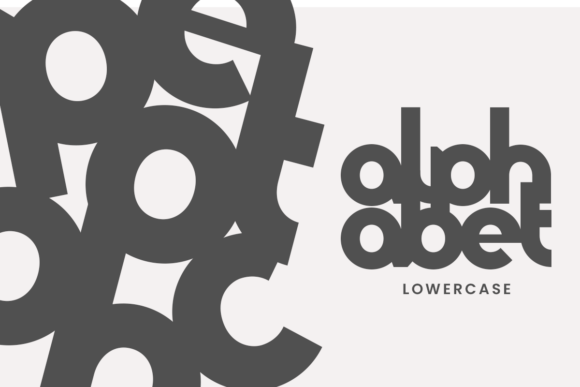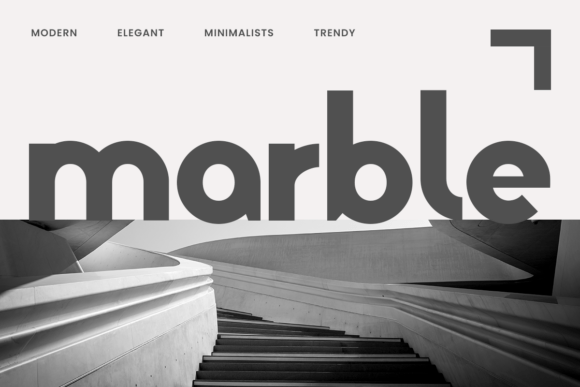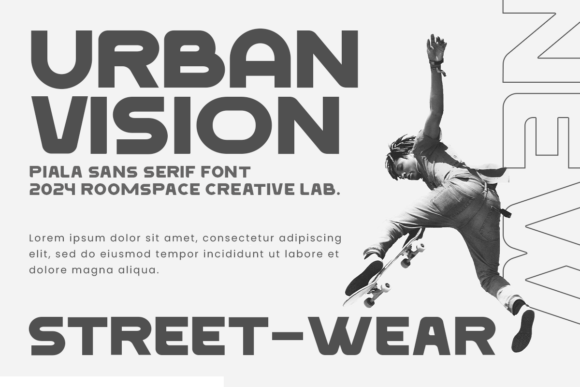
Piala Font: Modern Sans Serif for Logos & Clean Branding Designs
About the Piala Font
Presenting Piala Font, a unique and stylish typeface that will make your work stand out. Piala is a striking sans serif font that blends modern design with clean geometric lines. Carefully crafted for balance and precision, Piala captures a fresh, contemporary look that’s perfect for branding, editorial, and digital design. Each letter is built with smooth, symmetrical shapes, creating a harmonious and readable typeface that shines across all media. Its bold presence makes it ideal for logos, headlines, and web designs, giving a professional edge to your projects.
Piala’s bold personality makes it particularly effective for headlines, logos, and short-form text in branding materials and posters. Its clean geometry lends itself well to contemporary projects requiring a modern, professional feel; think tech startups, corporate identities, or minimalist product packaging. However, its strong visual weight makes it less suitable for body copy or extended text blocks, such as long-form articles or user interfaces.
Pairing Piala effectively requires considering its geometric strength. A complementary serif like Garamond or a softer sans-serif like Lato would provide pleasing contrast and readability in applications using both headline and body text. For a more modern aesthetic, geometric sans-serifs such as Futura or a clean script font like Playfair Display could be considered, depending on the desired level of formality.
Ultimately, Piala’s contemporary and confident style is best suited for projects that demand attention and communicate authority with clarity. Its balanced design ensures versatility across various media, providing a strong visual identity without sacrificing legibility where it counts.